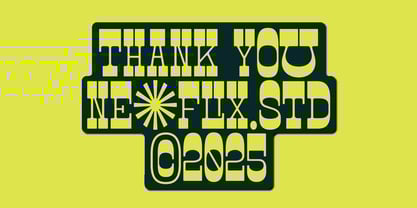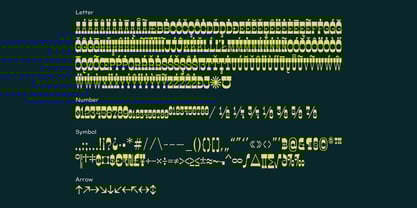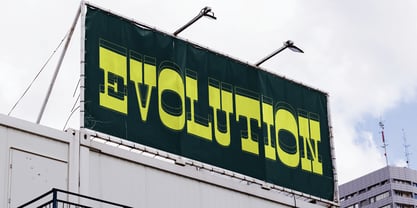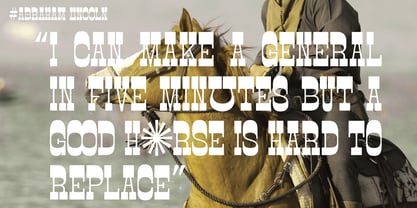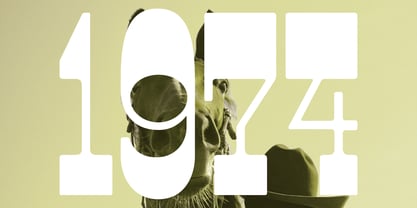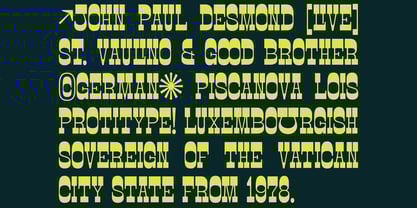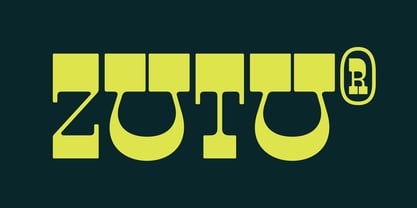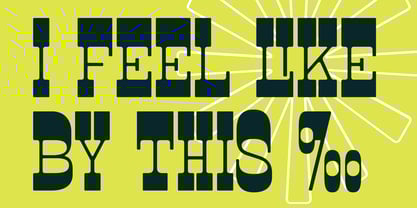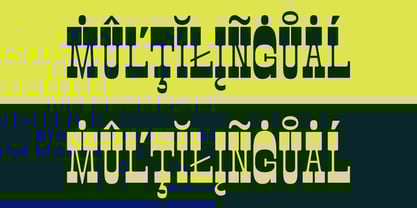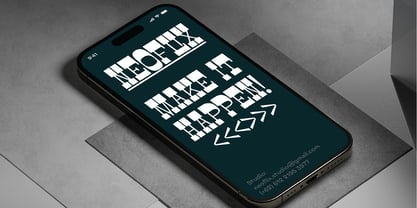
Zutu
by Neoflix Studio
The Zutu Font Family was designed by Irwan Riswanto and published by Neoflix Studio. Zutu contains 1 styles. More about this family
Zutu Typeface: Vintage Condensed Elegance
For graphic designers searching for a typeface with distinct flair, Zutu offers a reverse contrast slab-serif style that merges classic appeal with modern design. With its abundant open type features and an array of special characters, Zutu stands out in single styles and offers considerable personality.
Ideal Applications
Zutu's versatility shines in a range of uses, from headlines and posters to book covers, t-shirt designs, and logos. Its design balances modern and classic elements, making it suitable for various creative projects.
Technical Details
• Glyph Variety – Comprises 336 glyphs featuring numbers, punctuation, and symbols.
• Language Support – Accommodates over 75 languages, ensuring broad usability.
Designers: Irwan Riswanto
Foundry: Neoflix Studio